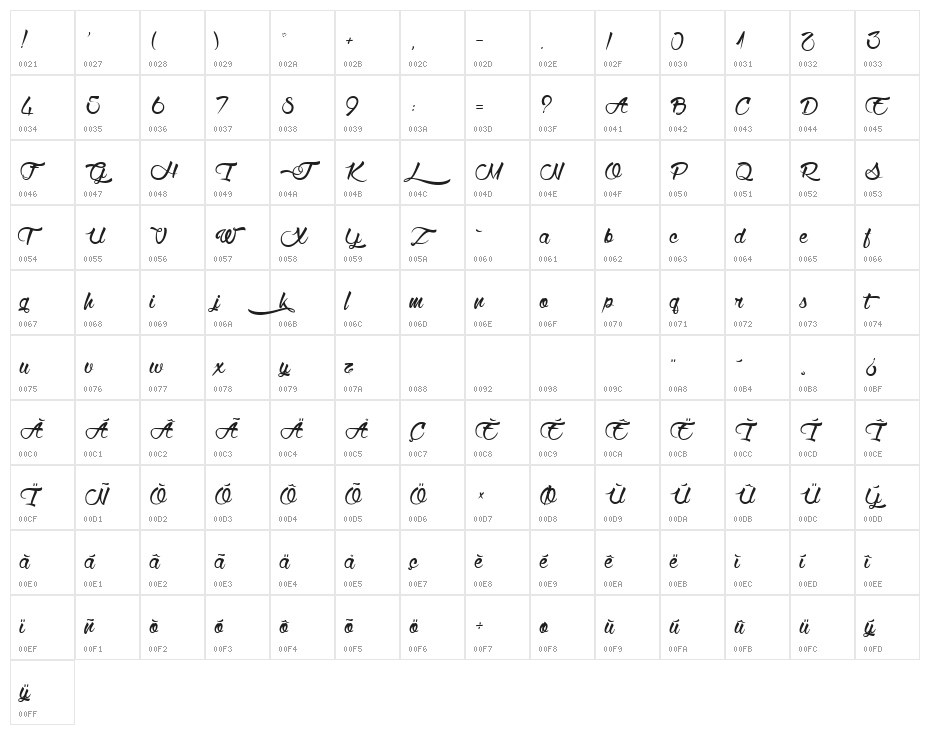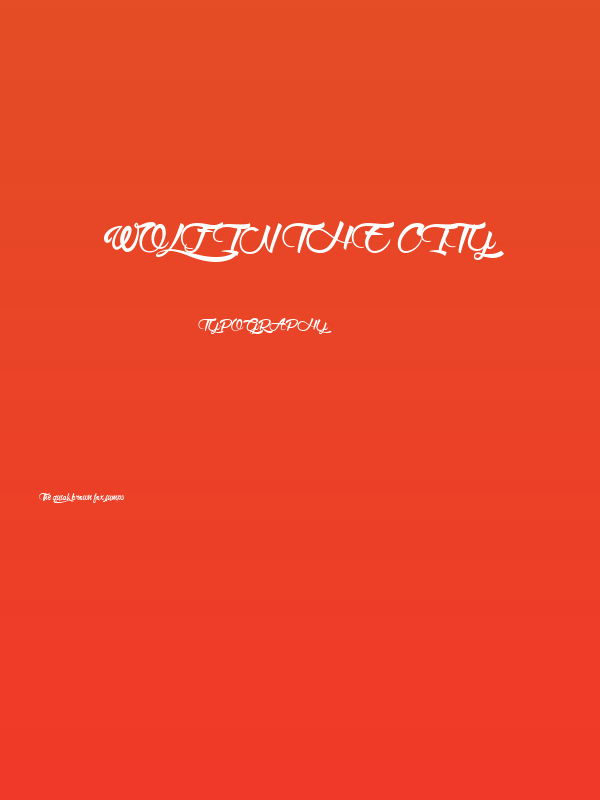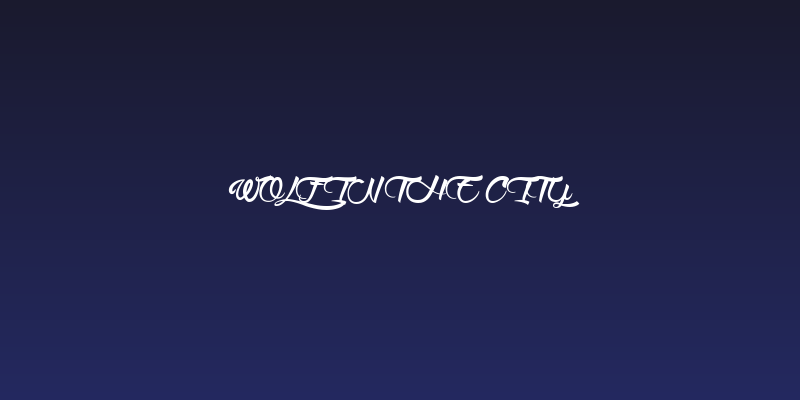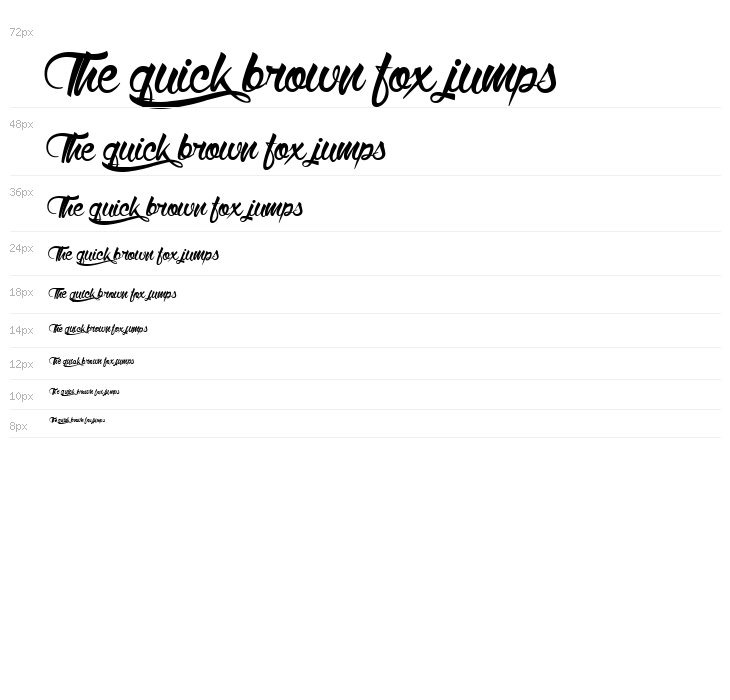
Wolf in the City Font
Wolf in the City Description
This font features an elegant and flowing script style, characterized by its cursive and calligraphic elements. The uppercase letters are ornate, with sweeping curves and flourishes that give a sense of movement and sophistication. The lowercase letters maintain a consistent flow, with some characters connecting seamlessly to others, enhancing the script's fluidity. The numerals are distinct, with a slight slant that complements the overall cursive theme. Special characters are designed to match the decorative style, ensuring cohesion across all text elements. This font's artistic flair makes it suitable for creative and expressive design projects.
Use CaseLogos, Invitations, Decorative Text
Proposed ProjectsIdeal for wedding invitations, greeting cards, logos, and branding materials that require a touch of elegance and sophistication.